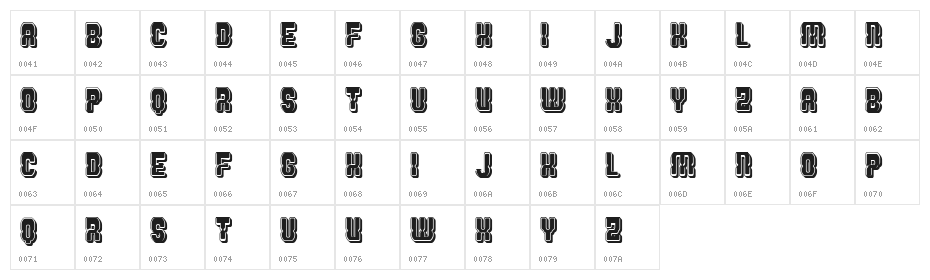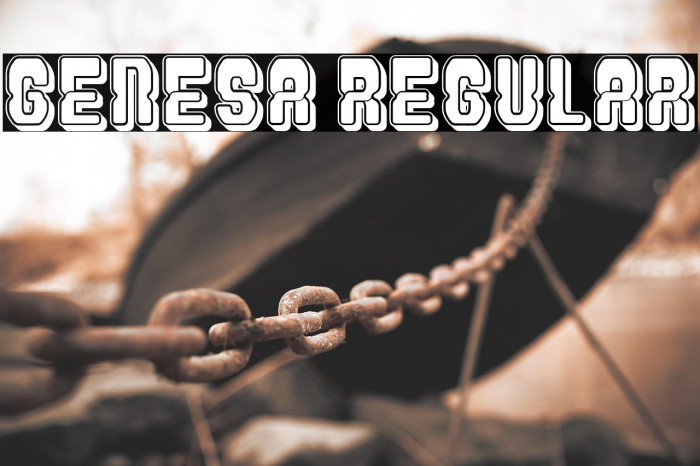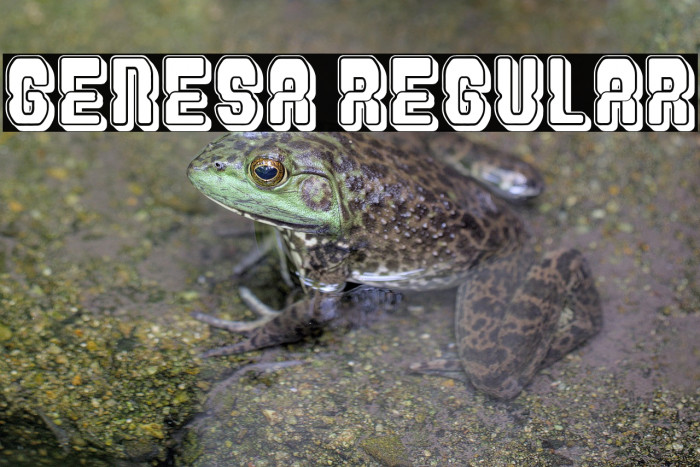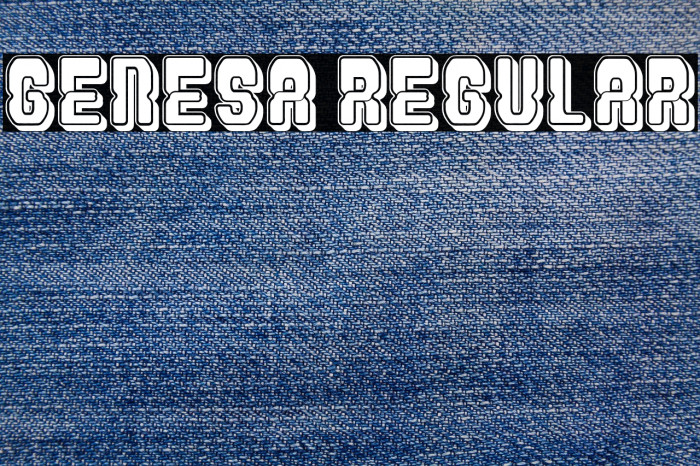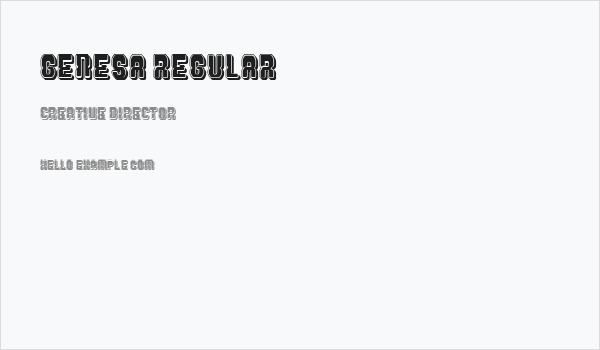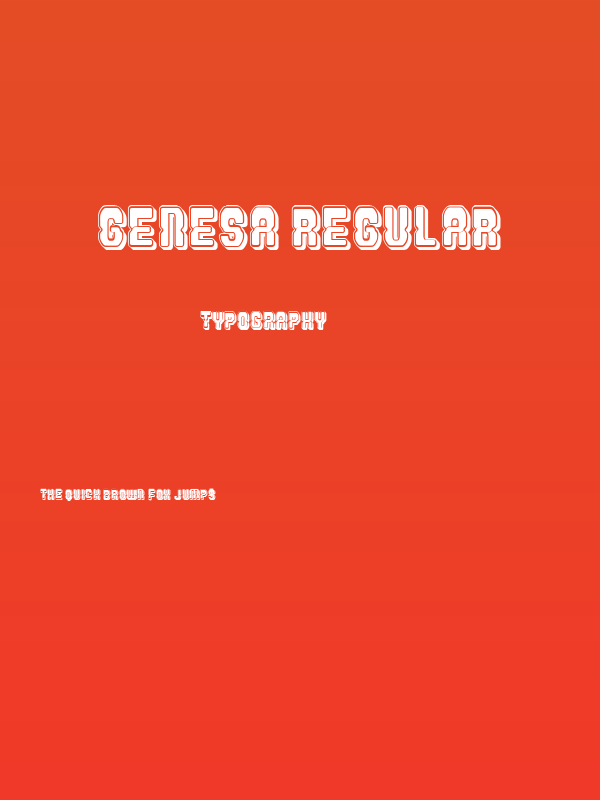
Genesa Regular Font
Genesa Regular Description
This font features a bold, geometric design with a distinct three-dimensional effect. The characters are outlined with a thick border, creating a shadow-like appearance that adds depth and visual interest. The style is reminiscent of retro and futuristic aesthetics, combining elements of both to create a unique and eye-catching look. The uppercase letters are uniform in height, with consistent spacing that maintains readability despite the complex design. This font is ideal for projects that require a strong visual impact, such as posters, logos, and headlines. Its decorative nature makes it less suitable for body text but perfect for drawing attention in creative designs.
| Overall Style | Retro-Futuristic |
| Proposed Projects | Ideal for posters, logos, headlines, and any project needing a strong visual impact. |